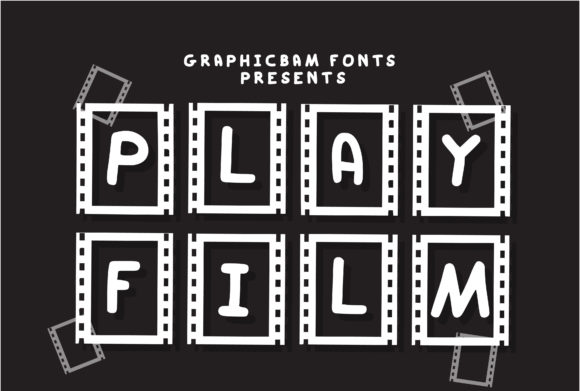
Discover Play Film Font: A Cinematic Masterpiece for Your Design Creations
Embark on a visual journey with Play Film Font, an extraordinary decorative typeface that ignites creativity and transports your designs to a world of cinematic grandeur. Crafted by the talented team at GraphicsBam Fonts, Play Film Font is not just a collection of letters; it's an artistic expression that captures the essence of motion, drama, and visual storytelling.
Dive into a realm of endless possibilities, where Play Film Font dances across your screen, leaving a trail of visual magic. Whether you're a seasoned designer or just starting your creative exploration, this font will captivate your imagination and elevate your work to new heights.
Unleash the Power of Play Film Font:
- Cinematic Charm: Experience the allure of the silver screen with Play Film Font. Its meticulously designed characters exude an air of cinematic grandeur, adding a touch of drama and intrigue to your designs.
- Timeless Elegance: Play Film Font transcends time, seamlessly blending classic elegance with a modern twist. Its vintage-inspired curves and sharp edges create a visually captivating aesthetic that will leave a lasting impression.
- Versatility Unbound: Unleash your creativity with Play Film Font's remarkable versatility. From crafting stunning posters that command attention to designing digital masterpieces that captivate audiences, this font adapts effortlessly to a myriad of projects.
- Craft Your Story: With Play Film Font, you hold the pen to write your visual narrative. Its characters become actors, embodying your messages and captivating your audience with their dynamic presence.
- A Font for All Occasions: Whether you're crafting wedding invitations that exude romance or designing business cards that demand attention, Play Film Font rises to the occasion, adding a touch of sophistication and flair to every project.
Embark on a creative odyssey with Play Film Font and witness the transformation of your designs into cinematic masterpieces. Get ready to leave your mark on the world, one design at a time.